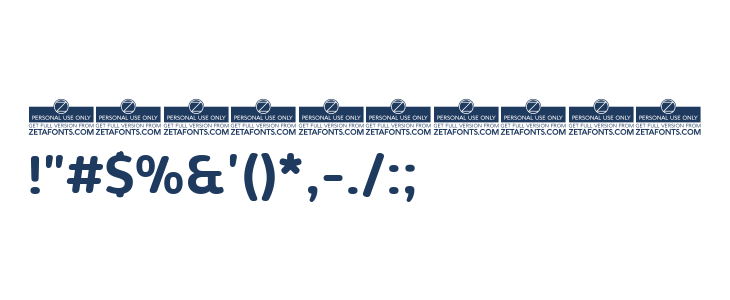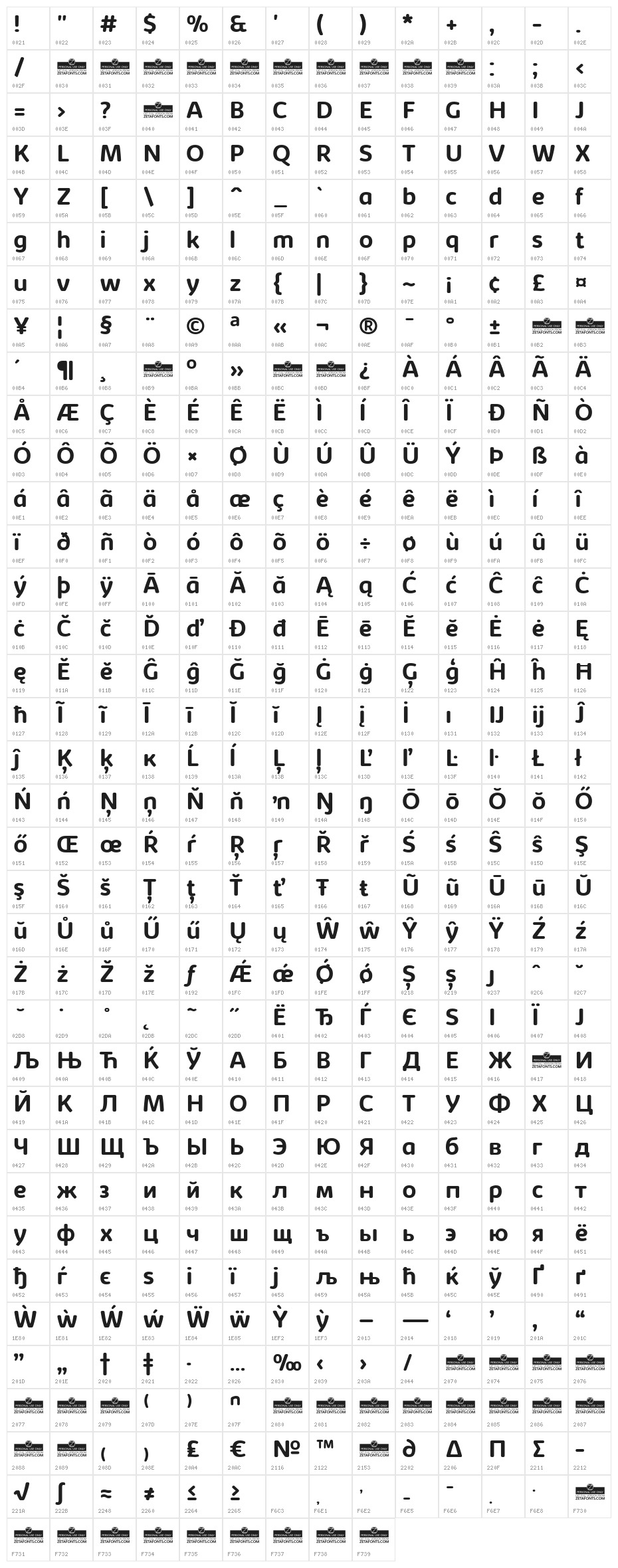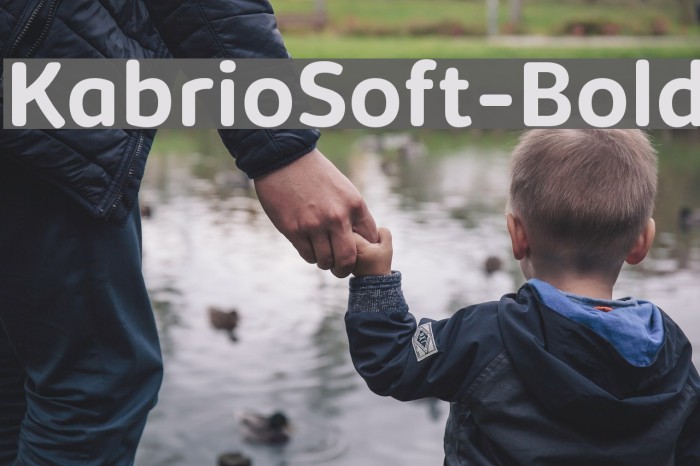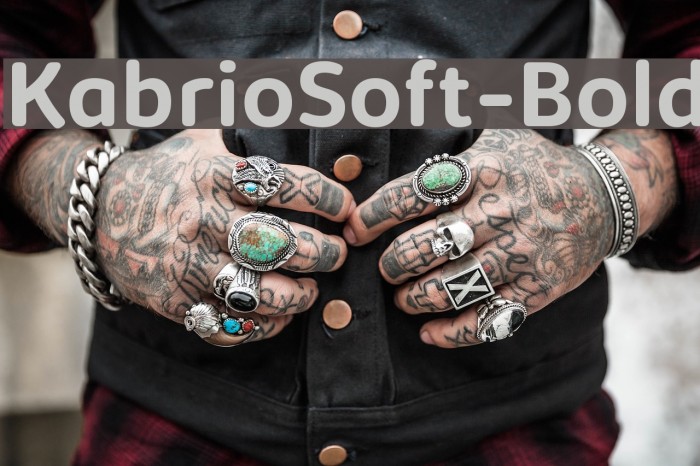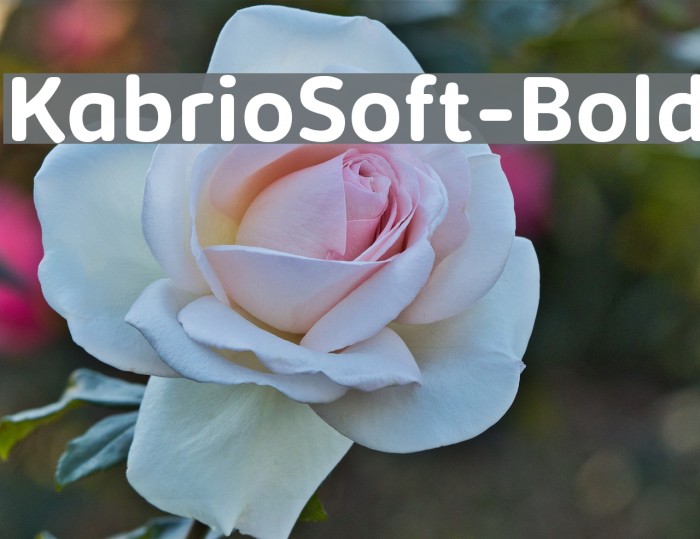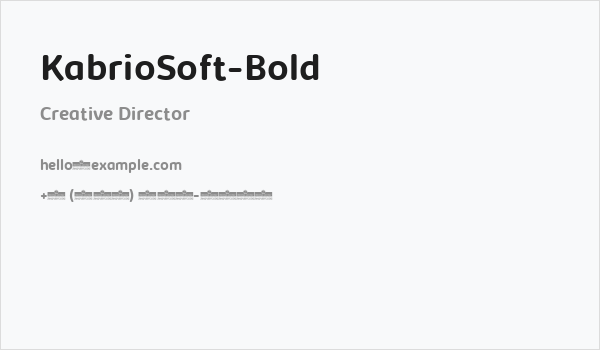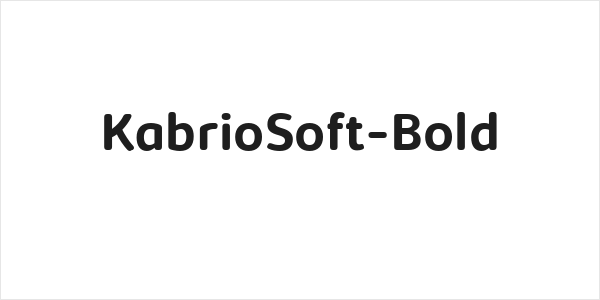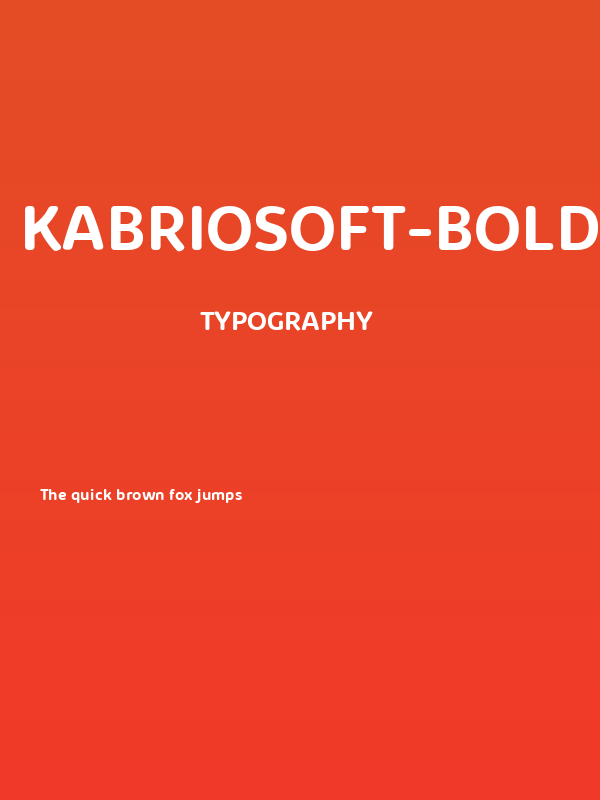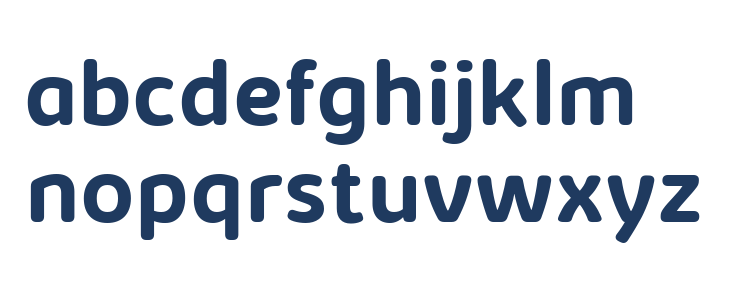
KabrioSoft-Bold Font
KabrioSoft-Bold Description
This font features a bold and rounded sans-serif style, characterized by its smooth curves and uniform stroke width. The letters are well-proportioned, with a modern and friendly appearance. The uppercase and lowercase letters maintain a consistent design, offering a clean and approachable look. The numerals and special characters are designed to match the overall aesthetic, ensuring readability and coherence across different uses. Its simplicity and clarity make it suitable for a variety of applications, from digital interfaces to print media.
| Use Case | Headlines, Logos, Digital Interfaces |
| Proposed Projects | Ideal for branding, advertising, digital interfaces, and print media where a modern and approachable look is desired. |